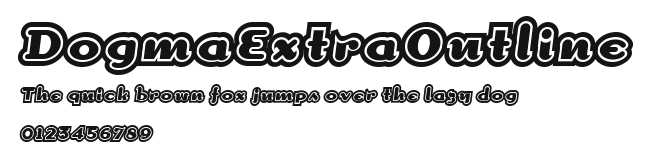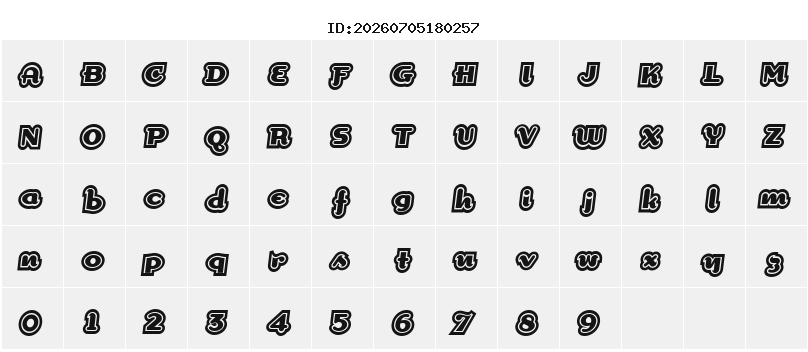
• Font Name: DogmaExtraOutline
• Font Style: Roman
• Font ID: DTP-DogmaExtraOutline
• Full Font Name: DogmaExtraOutline
• PostScript Name: DogmaExtraOutline
• Character Count: 217
• Copyright: Copyright (C) 1994 Emigre Graphics, Designed by Zuzana Licko
About DogmaExtraOutline.ttf
DogmaExtraOutline.ttf is a modern, elegant sans-serif font designed for ultimate readability and visual harmony. Perfect for branding, headlines, web design, and print materials.